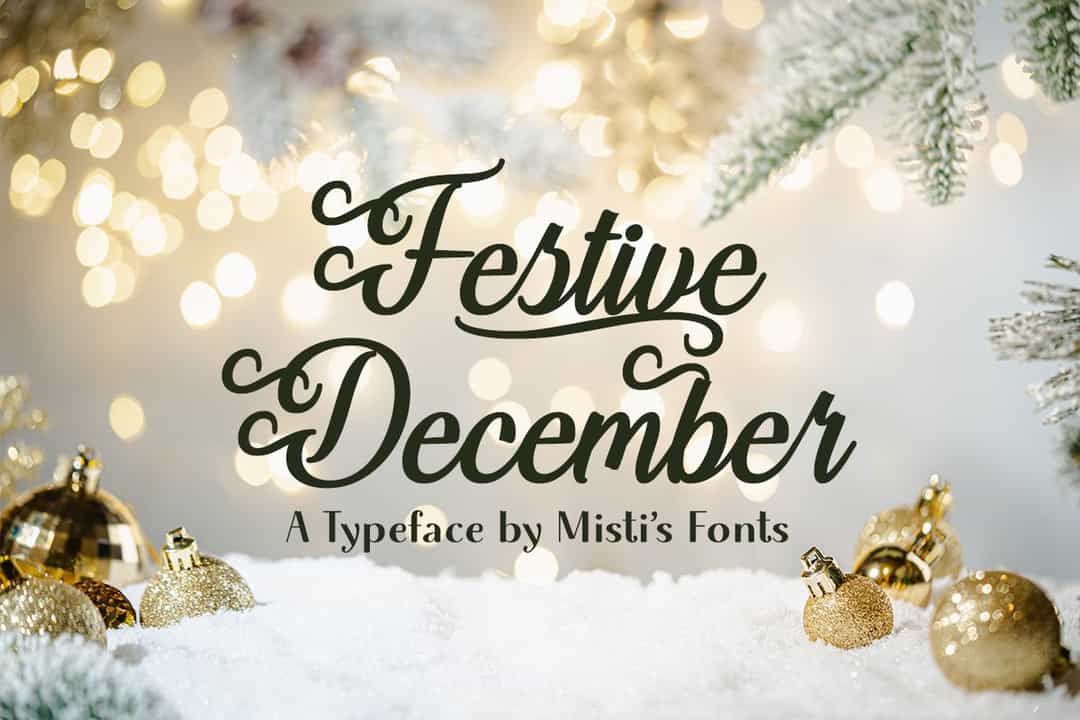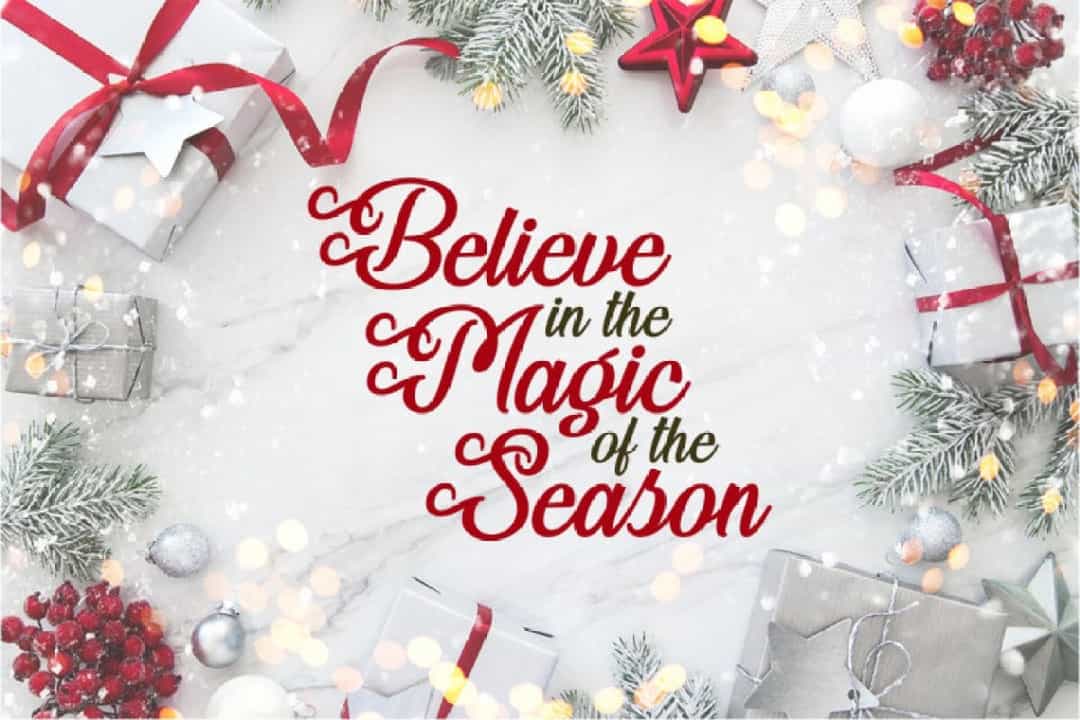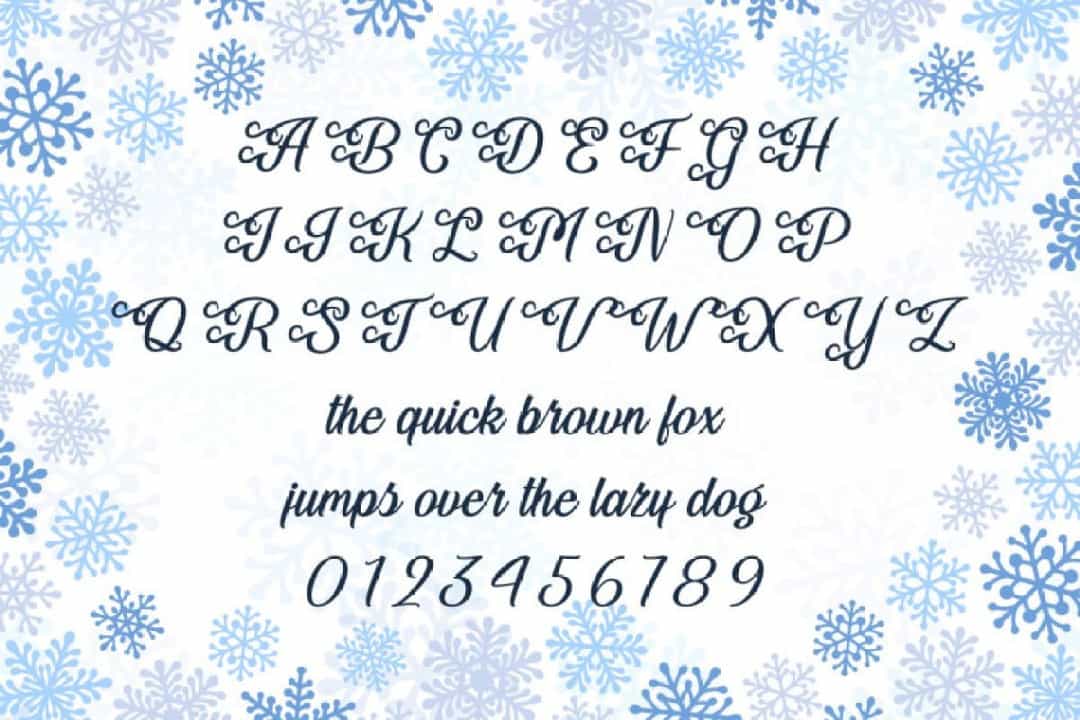
Discover Festive December Font, part of the Calligraphy collection—a versatile and unique font perfect for adding a personal touch to your projects. Download it for free and enjoy crafting designs with style, from invitations to social media posts. This font is available exclusively for personal use, giving you the freedom to create without limits. Unlock your creativity with Festive December Font today!
Festive December brings you the ideal script calligraphy font to meet all of your holiday design needs! This sophisticated, calligraphy-inspired font stands out with its exquisite flourishes that add the perfect glimmer to any design project.